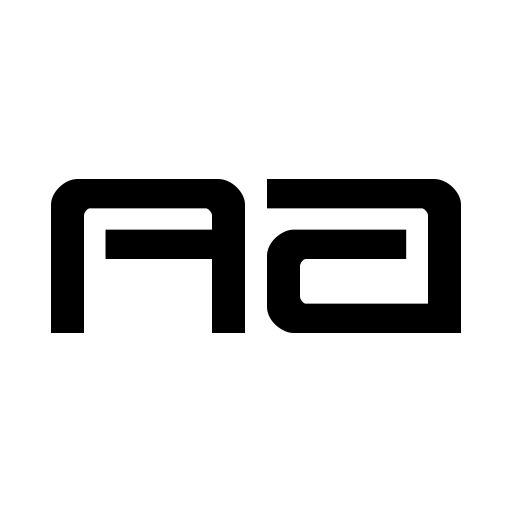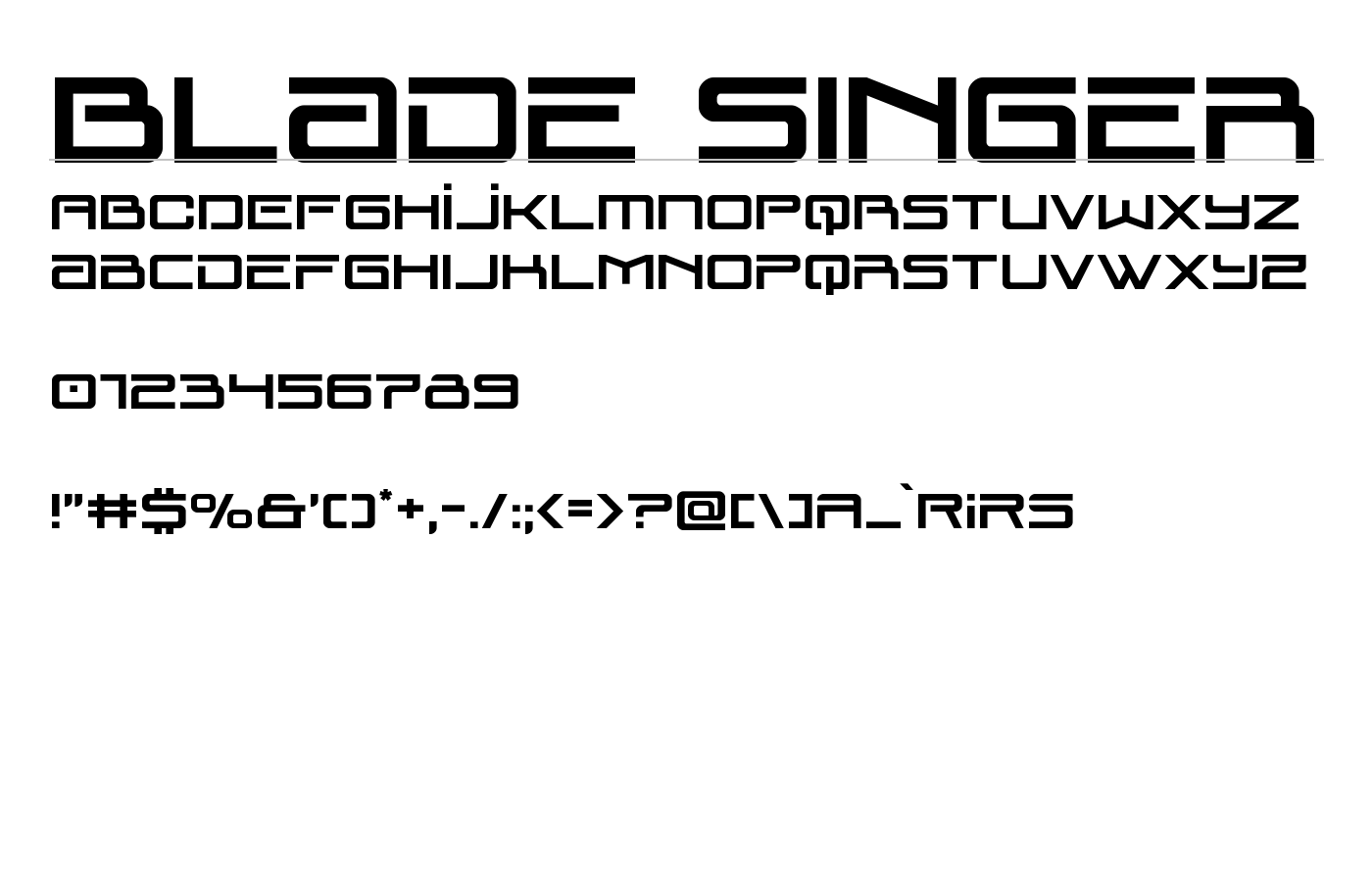
Blade Singer is a futuristic sans serif font with a strong, geometric design and medium weight. Its squared shapes and sharp angles give it a tech-inspired, modern feel, making it ideal for sci-fi themes, logos, and headlines. This font works well in projects that need a bold, cutting-edge look with clear legibility and a distinct personality.
Blade Singer Font
About Blade Singer Font